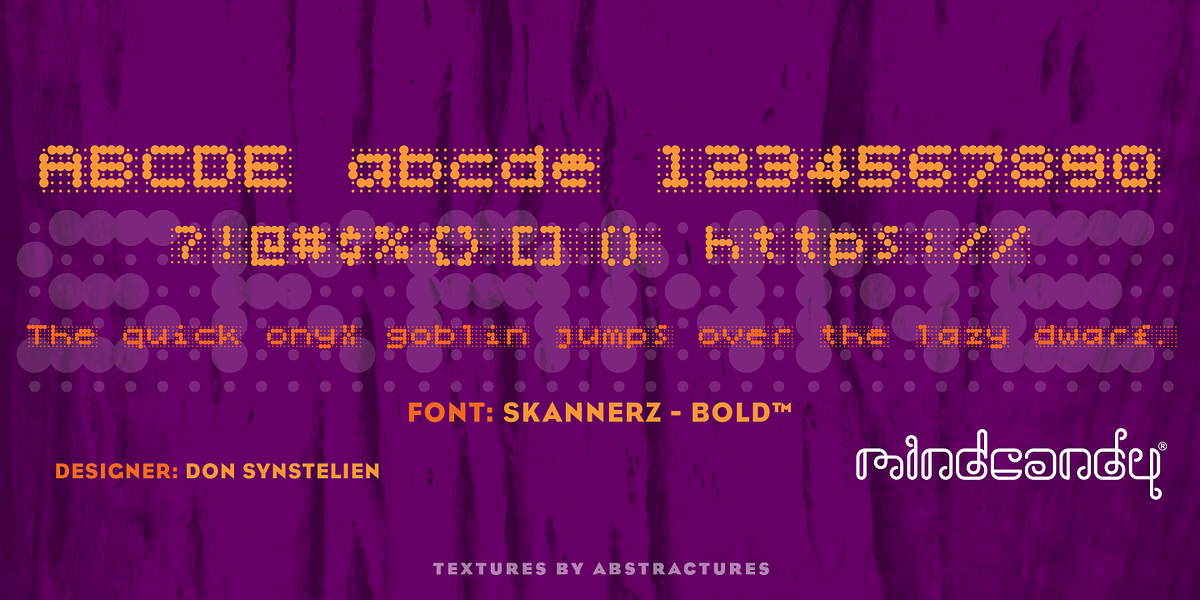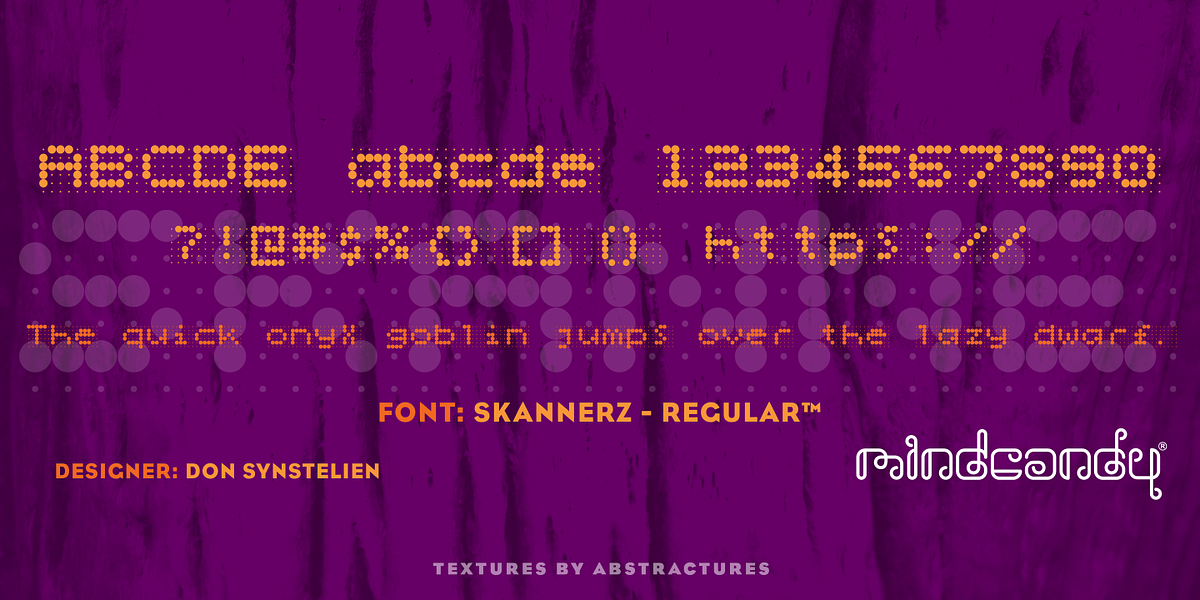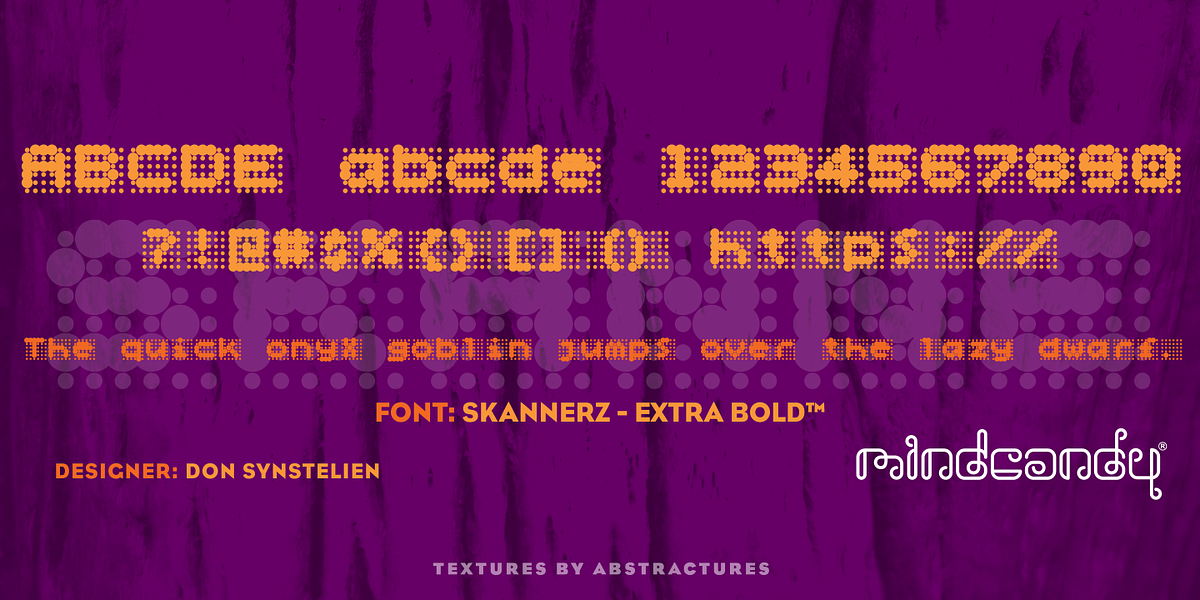
Skannerz™
This pixelated font evokes a retro aesthetic reminiscent of classic video games. Its playful nature and unique visual style make it suitable for branding projects, especially those targeting a nostalgic audience.